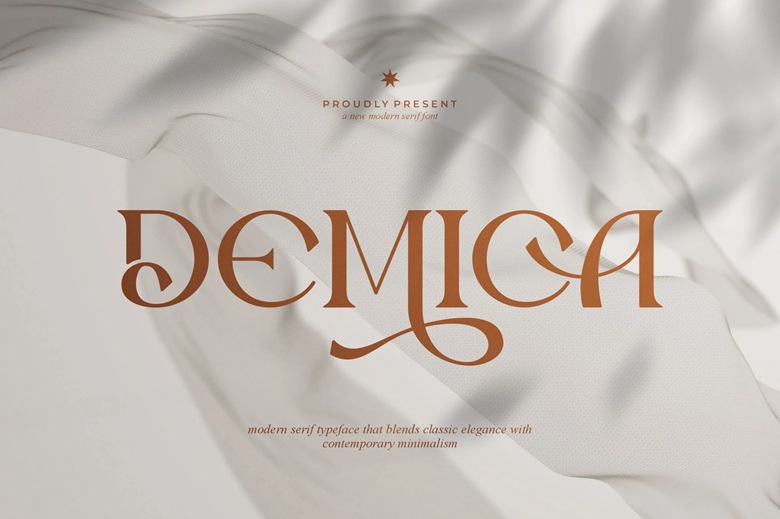
Demica Font
Demica is a modern and minimalistic font type for all logos and branding designs. It is a beautiful character of this modern and minimalist Serif font. The font can be used in invitation cards design, cool logos, movie title, movie name, business cards, book title, brand name, and other designs.
Demica serif is one of the smooth serif fonts that make it look sophisticated and timely. This font has sleek ligatures, which are why it is an ideal match with any project.
Demica Serif Font